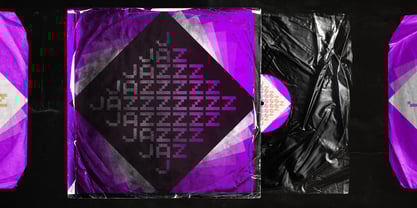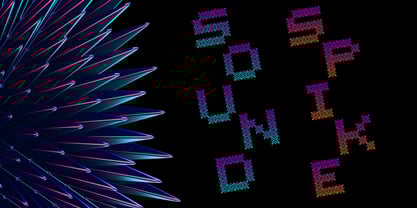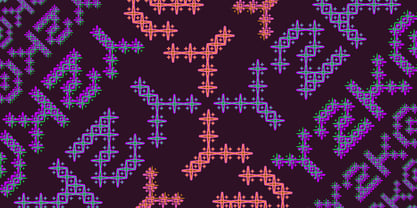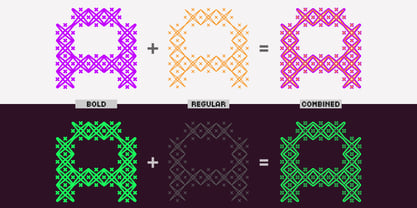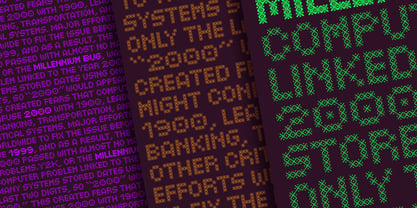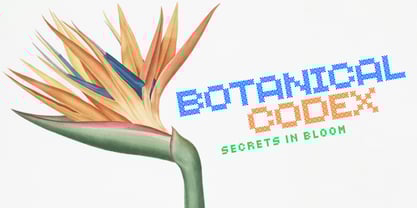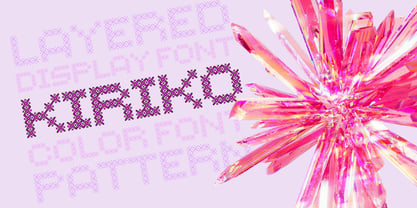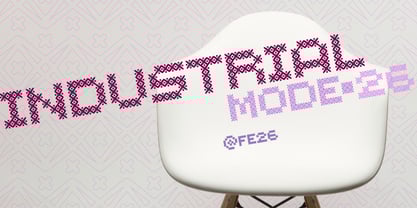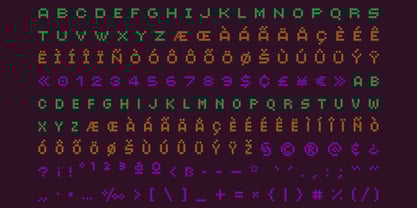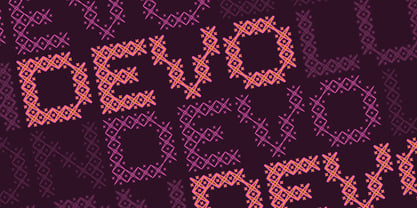
Kiriko
The Kiriko Font Family was designed by Kevin Foley and published by Kevin Foley Fonts. Kiriko contains 2 styles and family package options. More about this family
Kiriko started life as an original title design for an article about a kiriko cut-glass artisan featured in Skyward, Japan Airlines' inflight magazine. Originally inspired by the intricate cut-glass patterns, what began as a few letters has developed into a complete display font.
The cross-hatch pattern works with two weights that layer together perfectly. Using different colors for the Regular and Bold weights, you can create custom visual effects. The font includes both standard and condensed character widths mapped to upper and lowercase keys.
Kiriko brings contemporary pop energy with a futuristic, digital feel. The geometric patterns and layering capabilities make it ideal for bold headlines, publication design, and brand applications where you want visual impact.